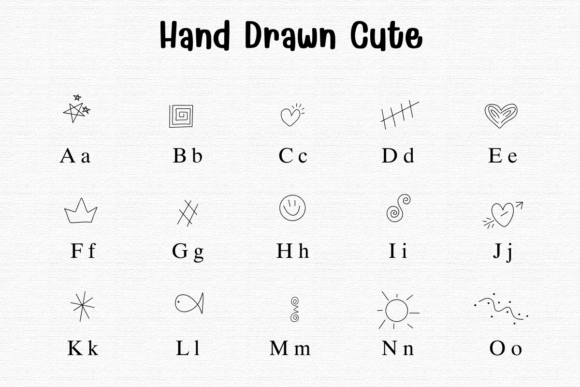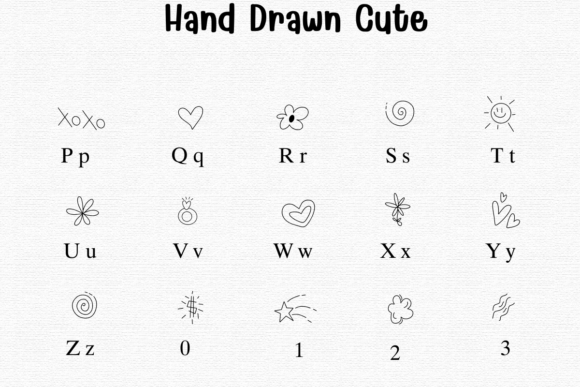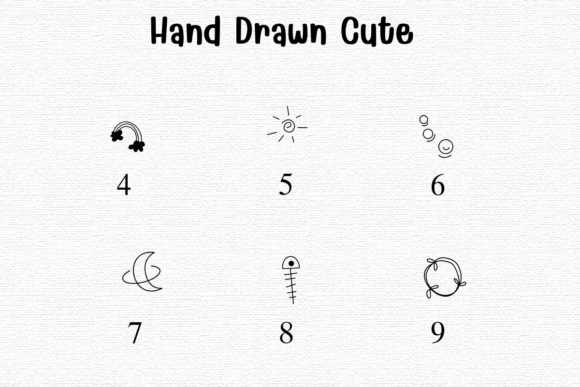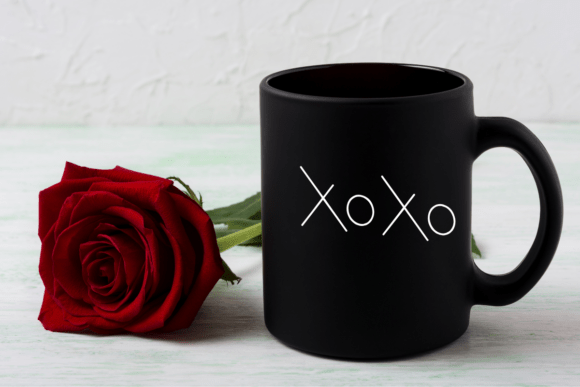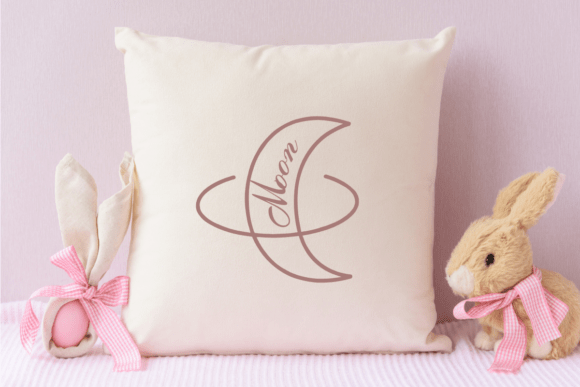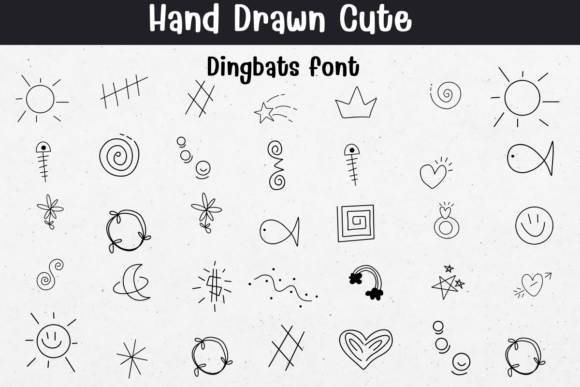
Hand Drawn Cute: The Ultimate Whimsical Line Art Dingbat Font
Are you tired of using the same old boring fonts in your designs? Do you want to add a touch of personality and whimsy to your digital planners, bullet journals, social media stickers, and greeting cards? Look no further than Hand Drawn Cute, a playful dingbat font that is packed with over 30 unique line-art illustrations.
What is Hand Drawn Cute?
Hand Drawn Cute is a hand-drawn dingbat font that features a collection of adorable illustrations, including smiling suns, tiny hearts, quirky fish skeletons, and celestial sparkles. Each icon is carefully crafted to maintain a consistent “sketchbook” aesthetic, making it easy to create cohesive and charming layouts in seconds.
Hand Drawn Cute is the perfect font for designers and crafters who want to add a touch of handcrafted magic to their designs. Whether you’re creating digital planners, bullet journals, social media stickers, or greeting cards, this font is sure to delight. The illustrations are versatile and can be used in a variety of contexts, from playful and whimsical to sweet and sentimental.
Key Features of Hand Drawn Cute
- Over 30 unique line-art illustrations: From smiling suns and tiny hearts to quirky fish skeletons and celestial sparkles, Hand Drawn Cute features a wide range of illustrations to suit any design need.
- Consistent “sketchbook” aesthetic: Each icon is carefully crafted to maintain a consistent look and feel, making it easy to create cohesive and charming layouts.
- Perfect for digital planners, bullet journals, social media stickers, and greeting cards: Hand Drawn Cute is versatile and can be used in a variety of contexts.
Ideas for Using Hand Drawn Cute
- Digital planners: Add a touch of personality to your digital planners with Hand Drawn Cute. Use the illustrations to create custom headers, icons, and graphics.
- Bullet journals: Take your bullet journal to the next level with Hand Drawn Cute. Use the illustrations to create custom trackers, headers, and decorations.
- Social media stickers: Add a touch of whimsy to your social media stickers with Hand Drawn Cute. Use the illustrations to create custom stickers for Instagram, Facebook, and more.
- Greeting cards: Create custom greeting cards with Hand Drawn Cute. Use the illustrations to add a touch of personality and whimsy to your cards.
Hand Drawn Cute is the ultimate whimsical line art dingbat font for designers and crafters. With over 30 unique illustrations, a consistent “sketchbook” aesthetic, and ease of use, this font is perfect for adding a touch of handcrafted magic to your designs. Whether you’re creating digital planners, bullet journals, social media stickers, or greeting cards, Hand Drawn Cute is sure to delight.